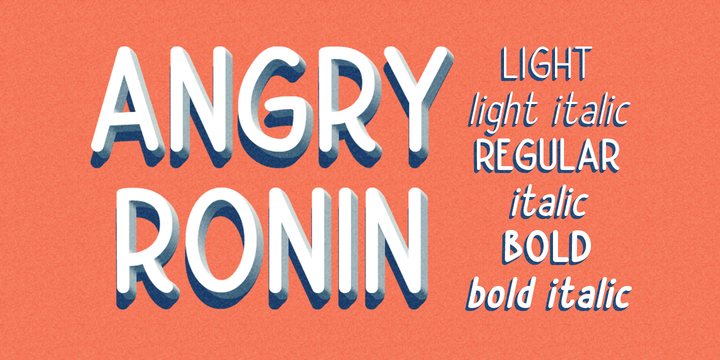
Angry Ronin
by Artcity
The Angry Ronin Font Family was designed by Daniel Bak and published by Artcity. Angry Ronin contains 6 styles and family package options. More about this family
Font designed for lettering dialogue baloons in comic books.
Designers: Daniel Bak
Foundry: Artcity
Artcity is a digital type foundry and lettering studio based in Warsaw, Poland, founded in 2013. Ma name is Daniel Bak, and I'm the founder of Artcity. I’m proffesional comic book letterer since 2007. I have lettered several hundred comic books that have been published in Poland, licensed by the largest comic book companies from around the world.Artcity specializes in designing fonts for comic books and books for children.